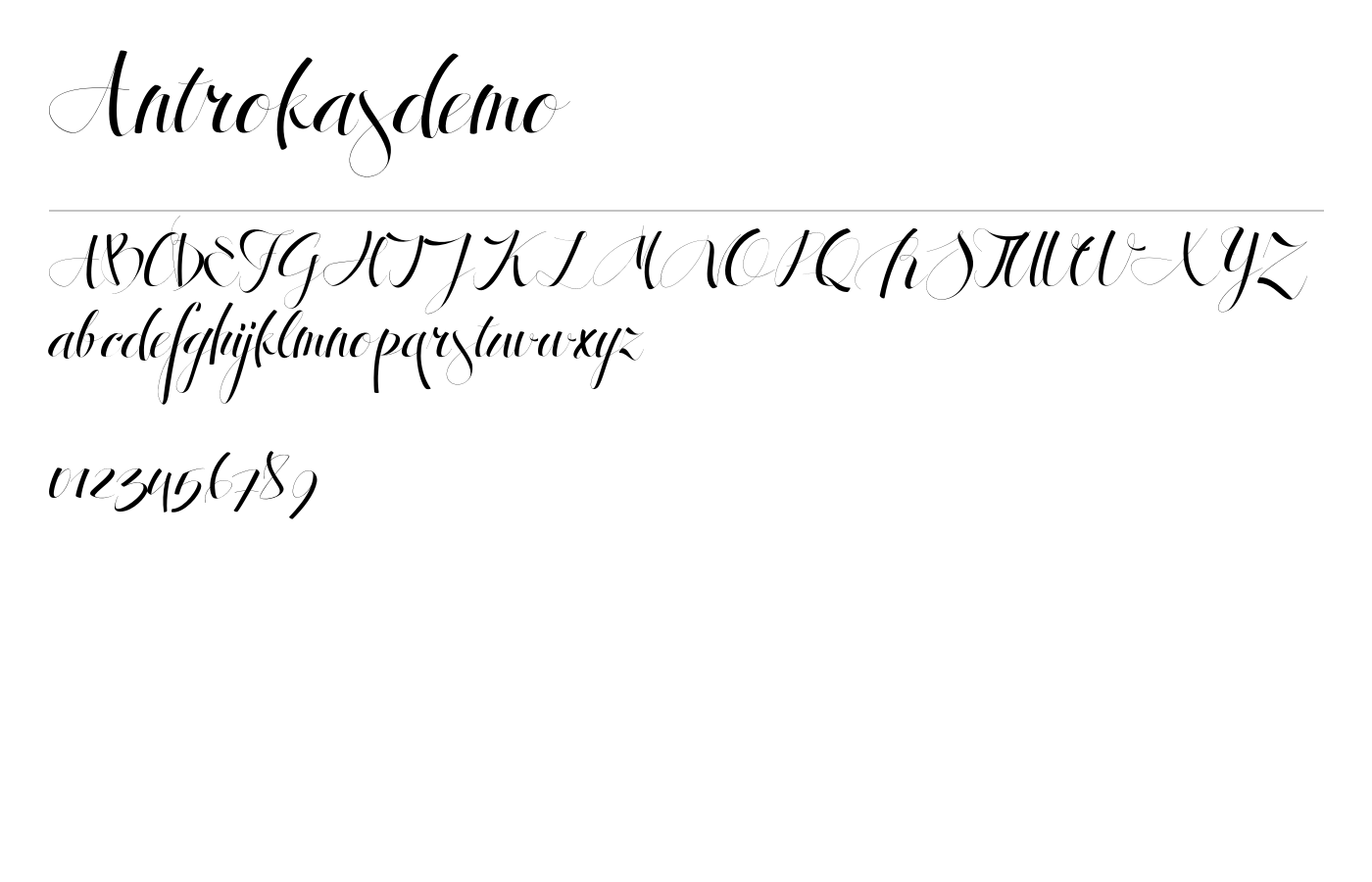
Antrokasdemo is an elegant script font characterized by its flowing, high-contrast strokes and delicate flourishes. It features slender, calligraphic letterforms with a refined, artistic feel, making it ideal for luxury branding, invitations, and sophisticated editorial designs where a touch of elegance and personality is desired. This font works beautifully in headlines and decorative text, lending a graceful and stylish atmosphere to any project.
Antrokasdemo Font